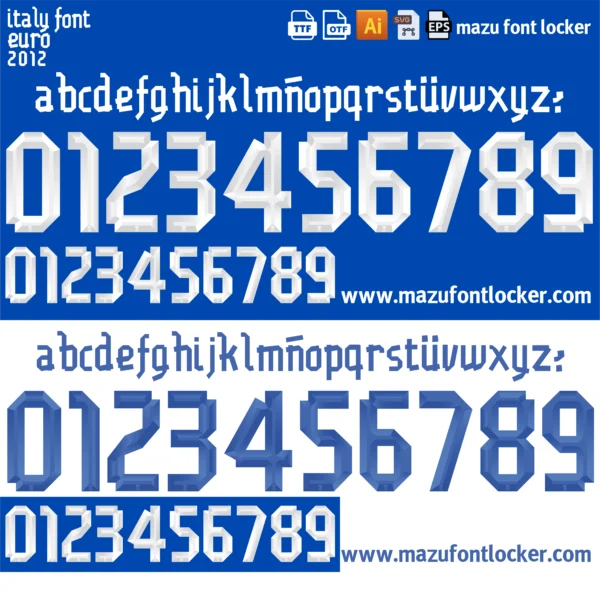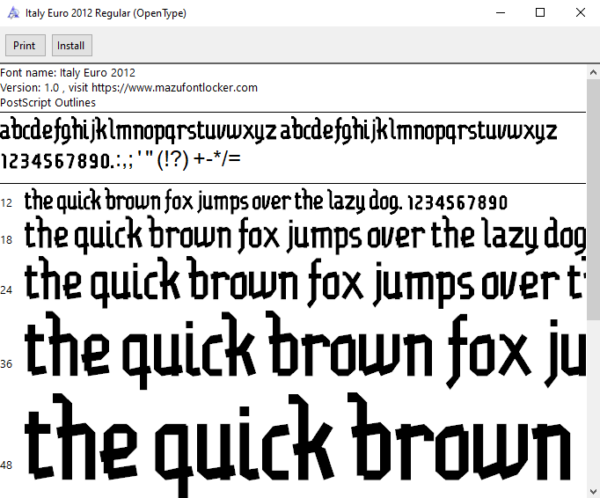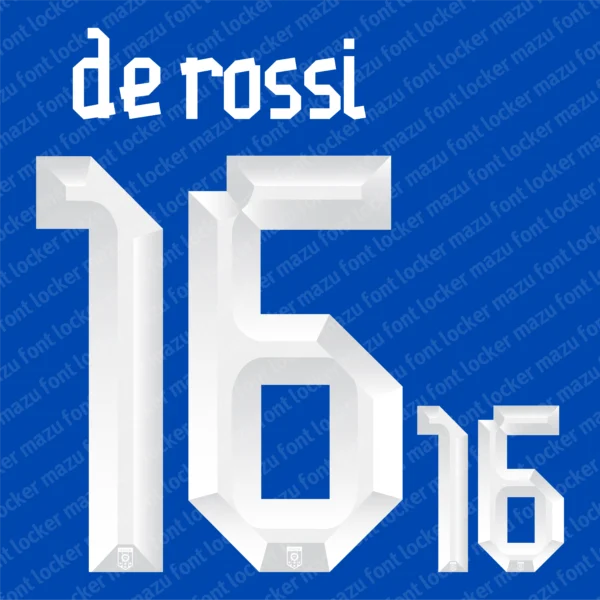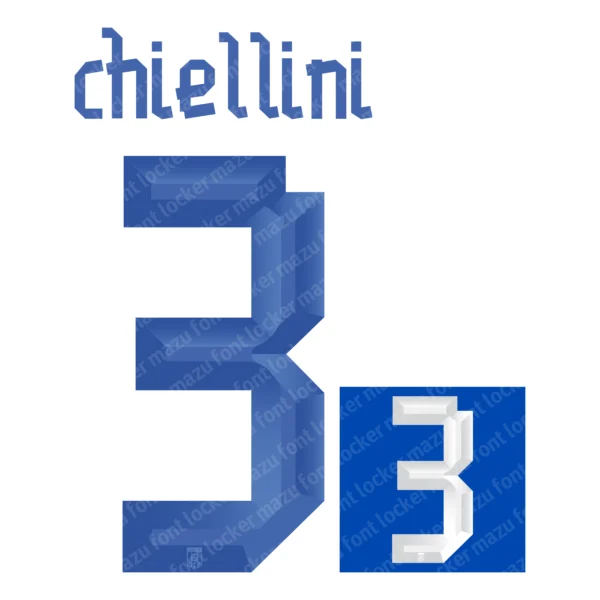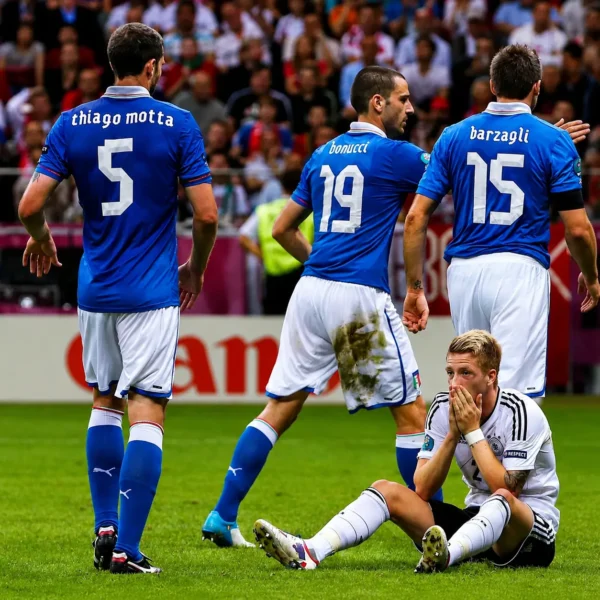
Italy Euro 2012 Font Vector – Epic Azzurri Legendary Masterpiece
Download the Italy Euro 2012 Font Vector (AI, EPS, SVG, PDF, OTF, TTF) and unleash the bold, thunderous, fiery, and ultra-aggressive match typography that roared like a powerful Azzurri storm across the pitches during Italy’s legendary Euro 2012 campaign. This premium font captures the commanding, iconic, intense lettering that embodies the unbreakable Italian spirit — delivering raw passion, explosive energy, relentless never-say-die attitude, tactical brilliance, and legendary Azzurri grit.
Perfect for premium jersey mockups, dynamic football designs, high-impact sports visuals, fan creations, stadium graphics, and powerful tributes that radiate pure blue pride while celebrating the heroic battles and fearless conquest of the Italian national team on the grand European stage.
Italy Euro 2012 Font Vector – Authentic Azzurri Typeface
The Italy Euro 2012 Font Vector is a premium typeface that accurately recreates the official match lettering worn by the Italian National Team during UEFA Euro 2012. This high-quality vector font kit captures the bold, elegant, and iconic typography that represents the fighting spirit and rich football heritage of the Azzurri.
Designed for professional designers and passionate Italy fans, the Italy Euro 2012 Font Vector delivers perfect authenticity for creating realistic jersey mockups, fan merchandise, matchday posters, social media graphics, and historic content. It pairs beautifully with the legendary blue home kit featuring the iconic Italian crest.
Why Choose Italy Euro 2012 Font Vector
This font stands out because of its sharp vector precision and strong national identity. Every letter and number is crafted to match the exact style used on the players’ shirts during the Euro 2012 campaign. Whether you are making realistic kit templates or exciting Azzurri content, the Italy Euro 2012 Font Vector gives your designs that authentic Italy look.
The letterforms in the Italy Euro 2012 Font Vector are tall, bold, and highly readable. The strokes have a strong, clean weight with excellent edge definition that looks powerful on the back of jerseys while maintaining classic Italian elegance and clarity.
• Full uppercase A–Z and numbers 0–9 in authentic Italy Euro 2012 style
• Special Italian crest glyph for accurate shirt number detailing
• Create highly realistic Italy Euro 2012 home and away jersey mockups with accurate lettering
• Produce custom Italy national team merchandise with the Euro 2012 aesthetic
Italy Euro 2012 Campaign
The Euro 2012 tournament saw Italy reach the final under manager Cesare Prandelli. The Azzurri delivered memorable performances, defeating strong sides and showcasing their tactical brilliance. Although they finished as runners-up after losing to Spain in the final, the campaign is remembered for the passion and resilience of players like Gianluigi Buffon, Andrea Pirlo, and Mario Balotelli.